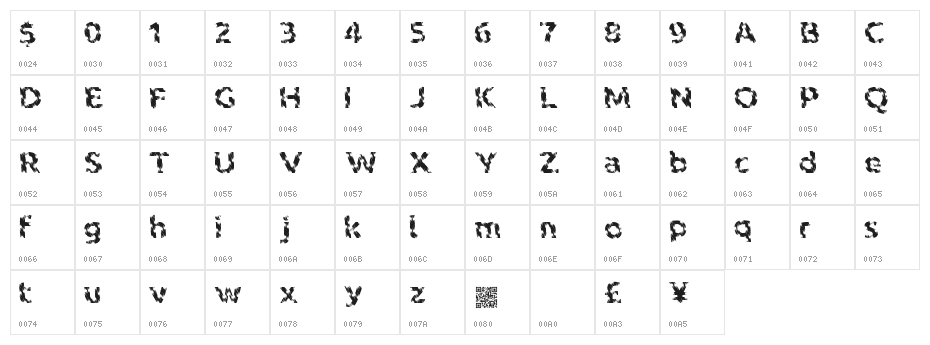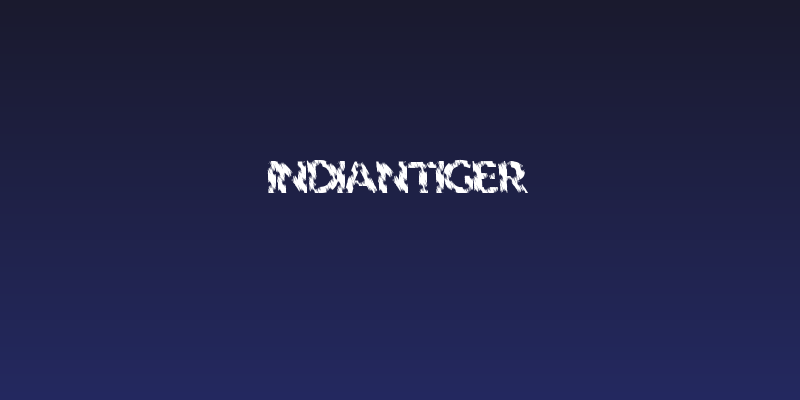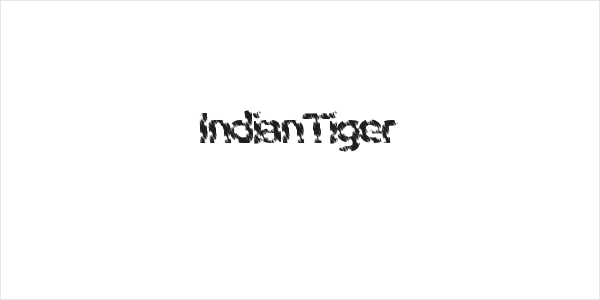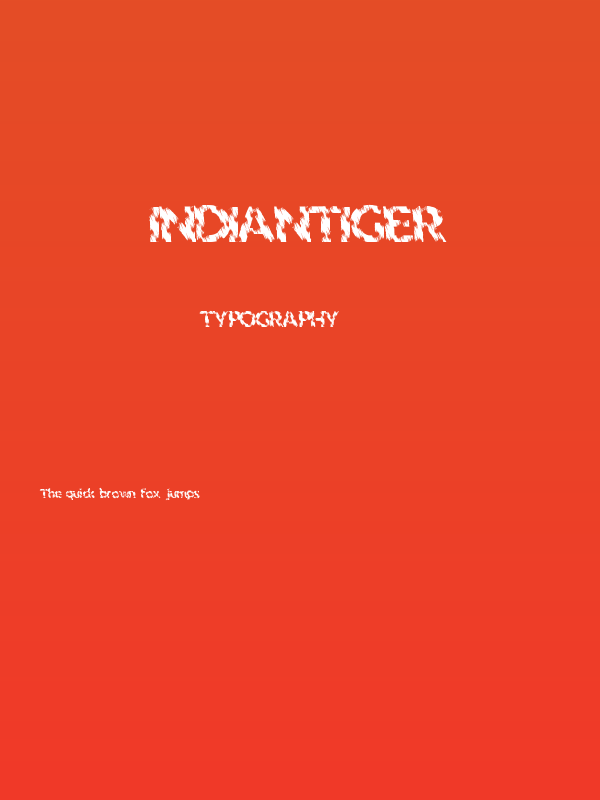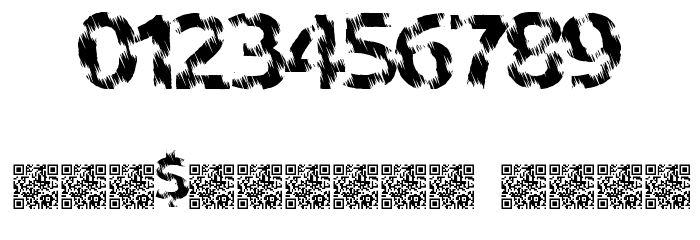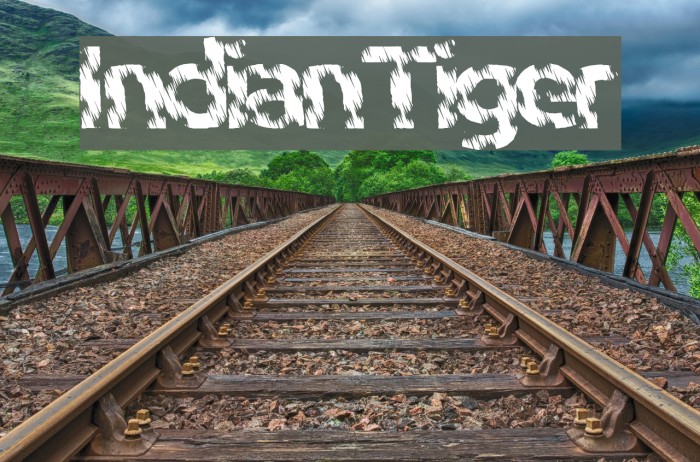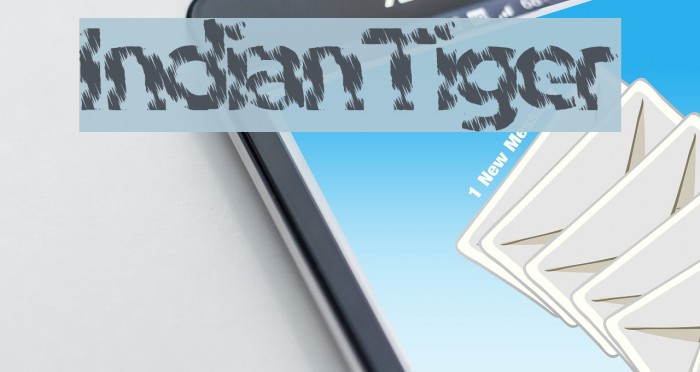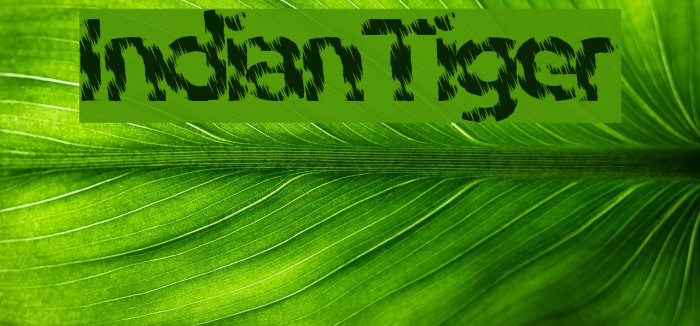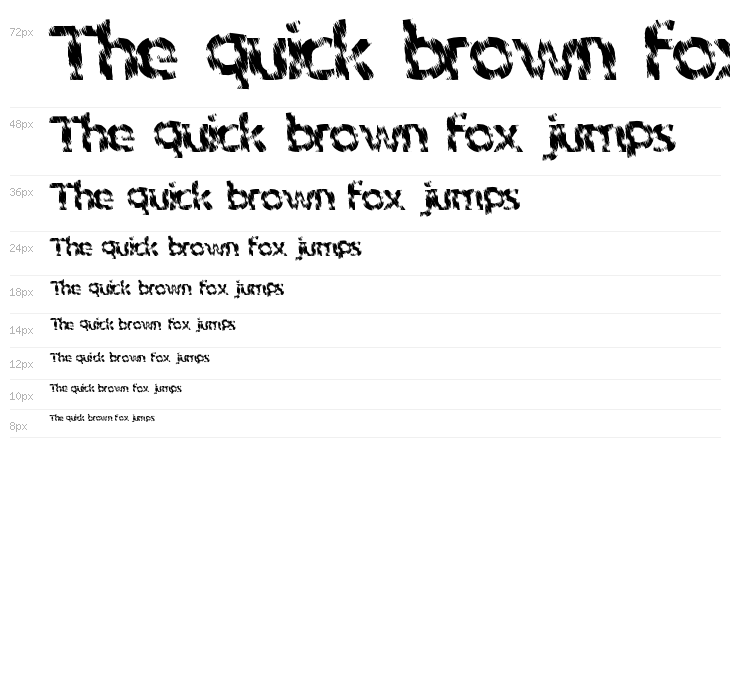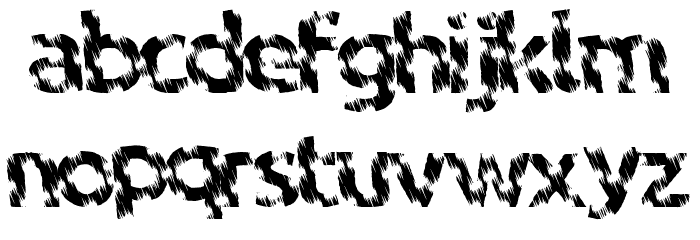
IndianTiger Font
IndianTiger Description
This font features a bold and dynamic design with a unique, textured appearance that resembles the stripes of a tiger. The characters are crafted with irregular, jagged edges, giving them a wild and untamed look. This style is consistent across uppercase, lowercase, numbers, and special characters, creating a cohesive and striking visual impact. The font's distinctiveness makes it stand out, capturing attention with its fierce and adventurous aesthetic. Its boldness and texture make it suitable for projects that require a strong and memorable visual statement.
INDIANTIGER UPPERCASE
INDIANTIGER LOWERCASE
INDIANTIGER OTHER CHARS